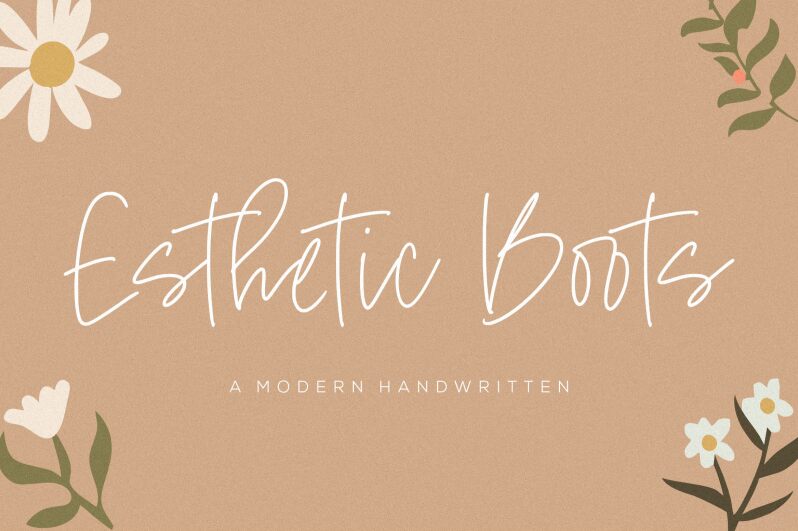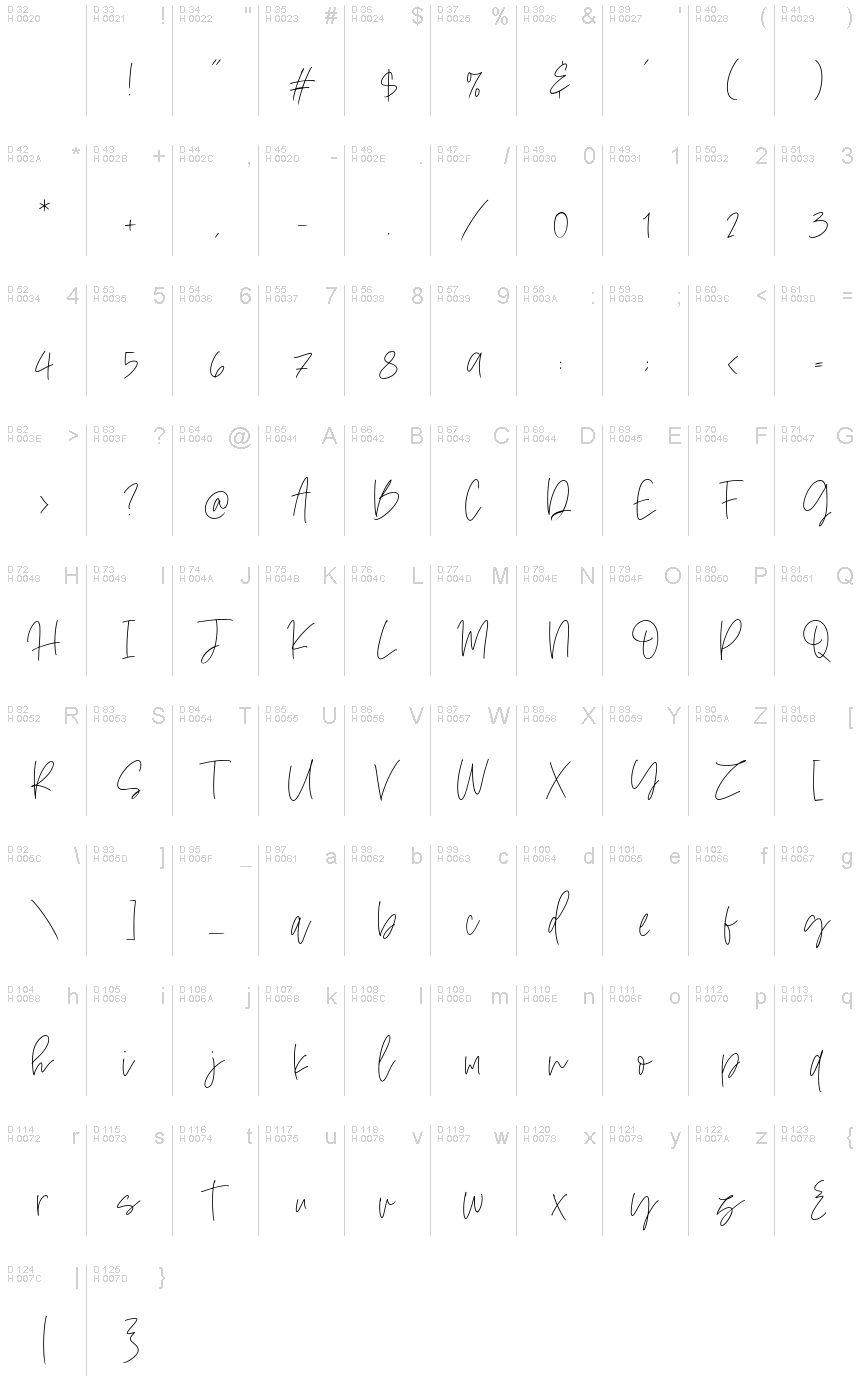
Esthetic Boots
Esthetic Boots font crafted by Balpirick Studio is a light handwritten typeface loaded with elegantly flowing gentle curves. Its letters are characterized by sophistication and airy but playful elements, they’re also slightly elongated in form. This free font brings subtlety to projects like logos, posters, apparel design, and typography art.
Create aesthetic album covers or fluent digital and print ads. Esthetic Boots can bring out the elegance of wedding invitations, greeting cards, book covers, or simple social media posts.